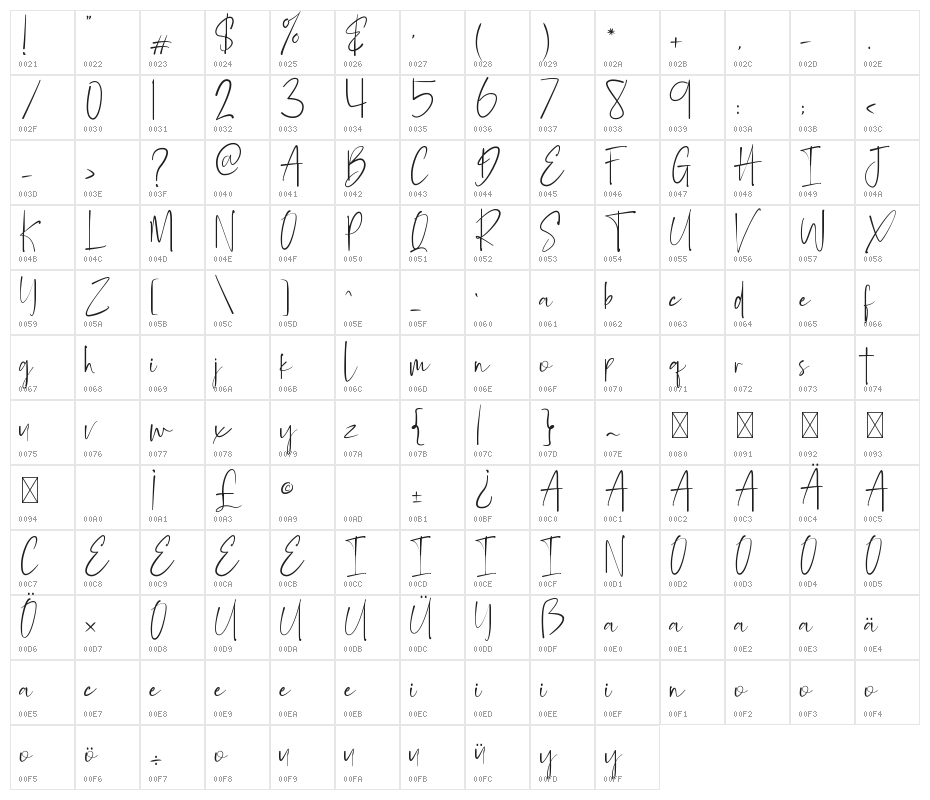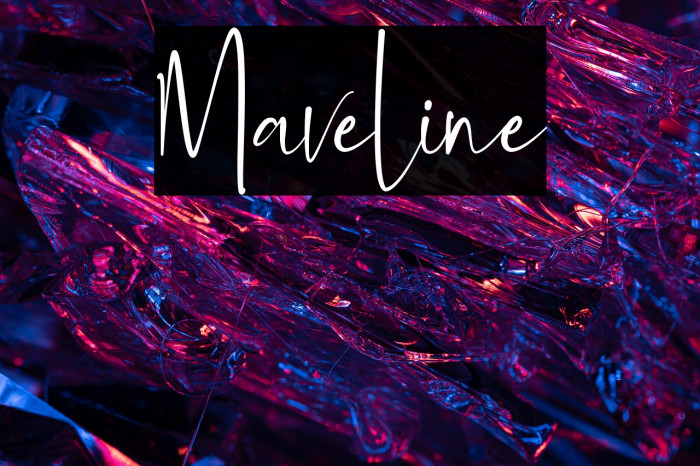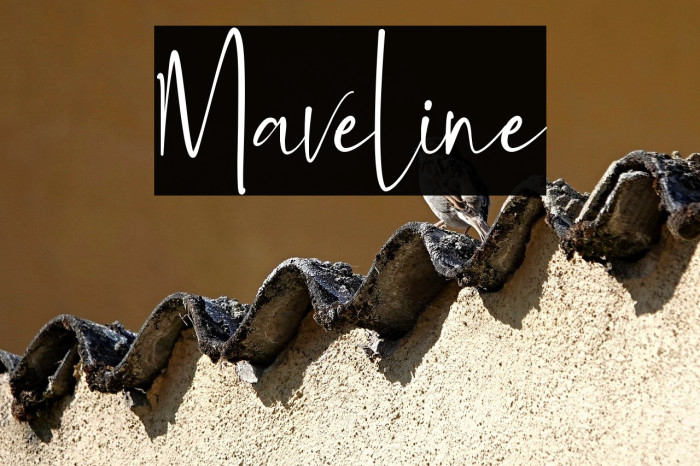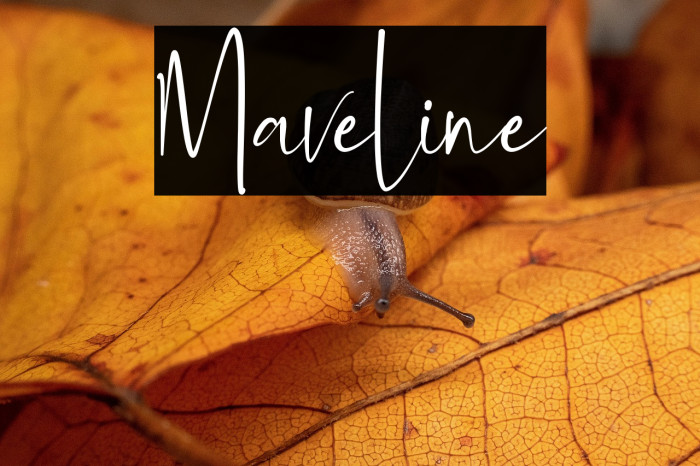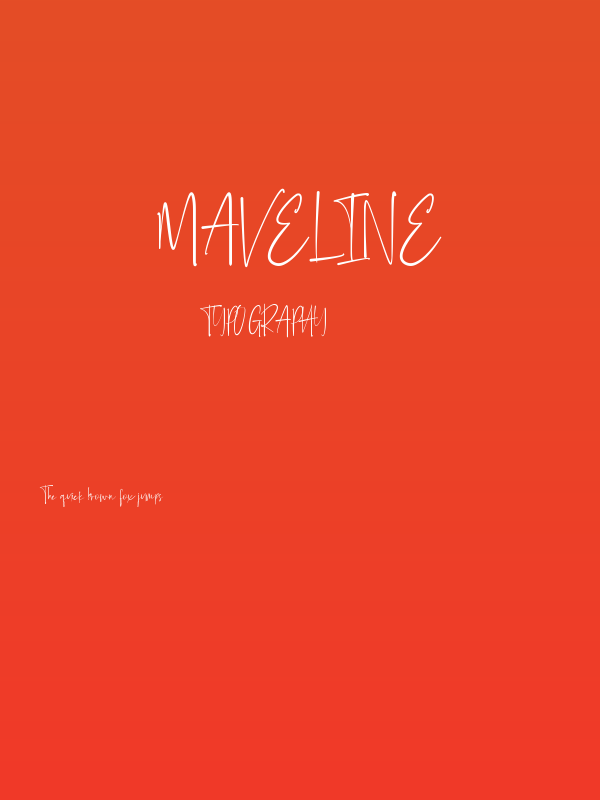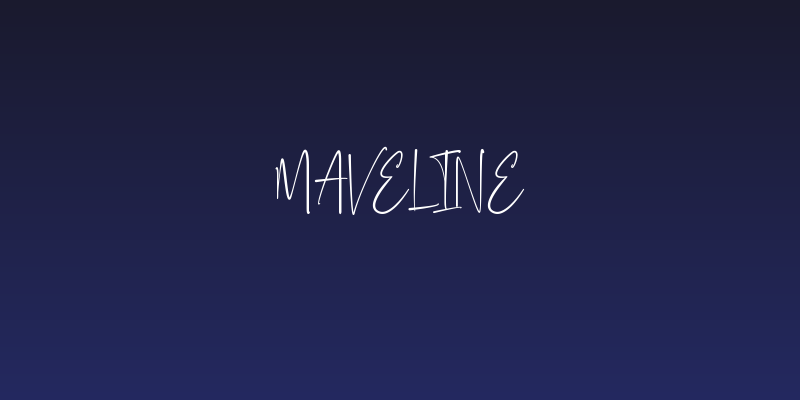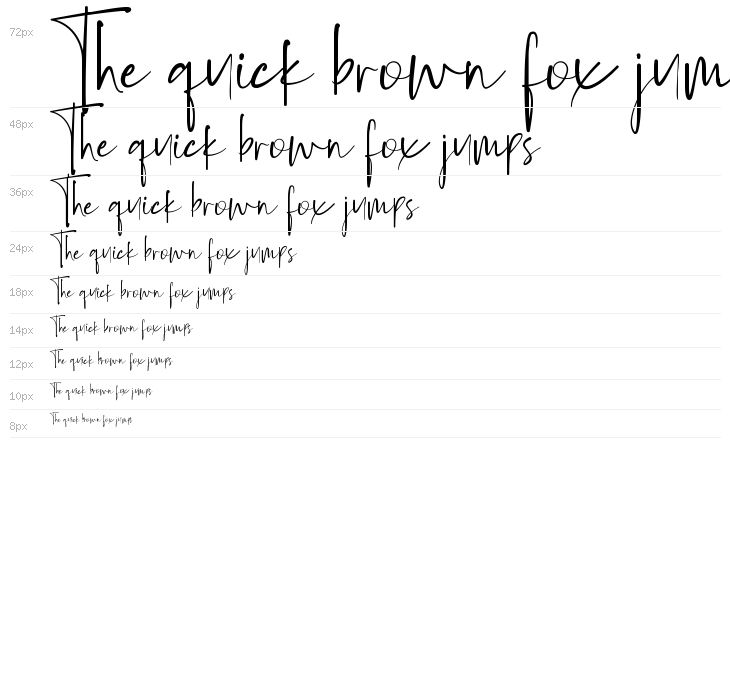
Maveline Font
Maveline Description
This font features a lively and expressive handwritten style, characterized by its fluid and dynamic strokes. The uppercase letters are tall and slender, with a playful yet elegant flair, while the lowercase letters maintain a consistent flow with slightly exaggerated loops and curves. The numbers and special characters are crafted with the same attention to detail, ensuring a cohesive look across all glyphs. This font exudes a sense of personal touch and creativity, making it ideal for projects that require a humanistic and approachable feel.
| Proposed Projects | Perfect for greeting cards, invitations, personal branding, and creative projects that require a personal touch. |